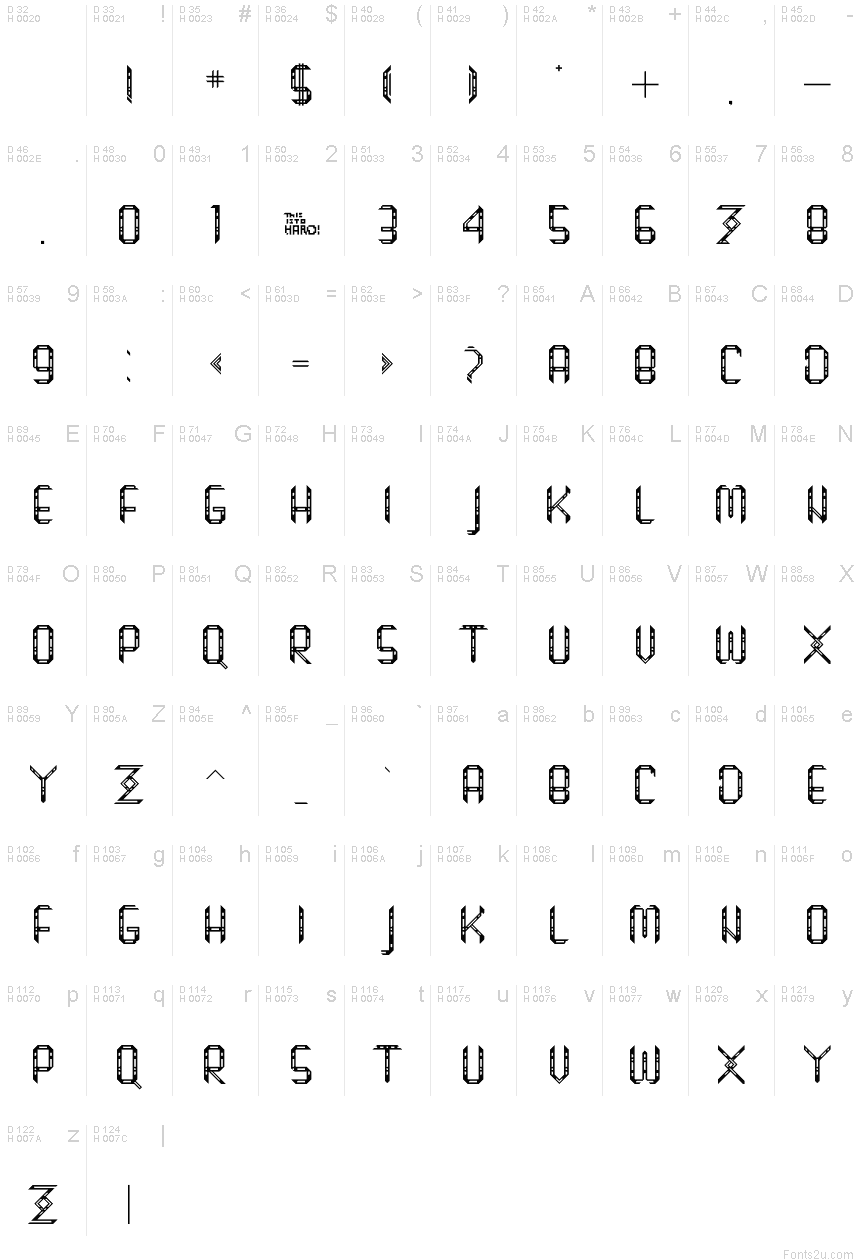
HydrolyhK V. 1.5 by Drgrit of FontStruct is a free futuristic outline display font built from angular, mechanical strokes. Repeated square cutouts resemble rivets or illuminated control-panel marks. The caps have a rigid, modular silhouette with sharp diagonal joints.
Circuit diagrams and machine illustrations can echo its segmented construction in game graphics and science-fiction posters. The same industrial geometry suits technology branding and electronic music merchandise, especially for projects drawing on robots, spacecraft, or arcade hardware.